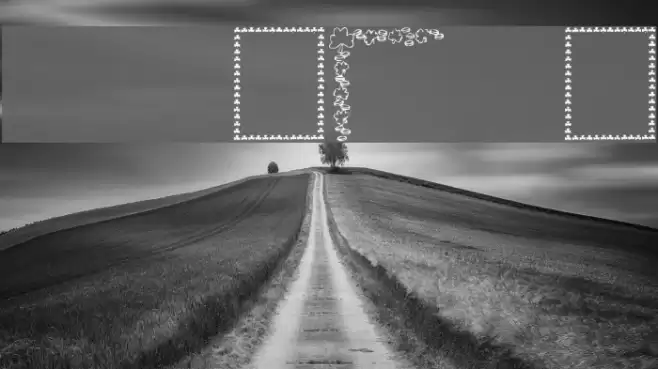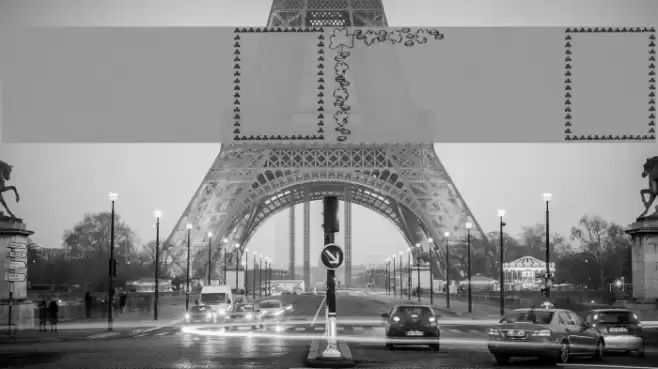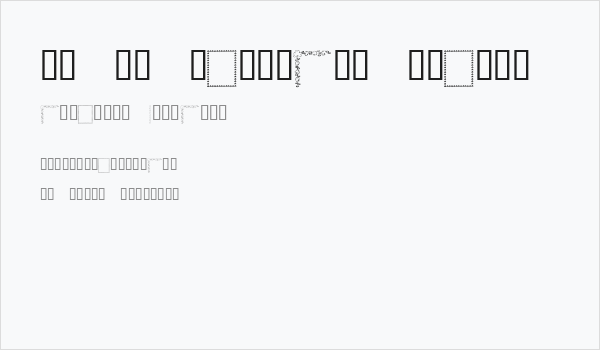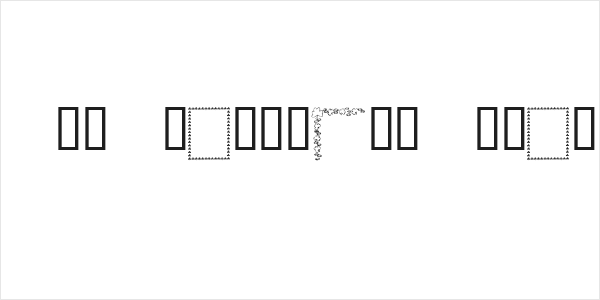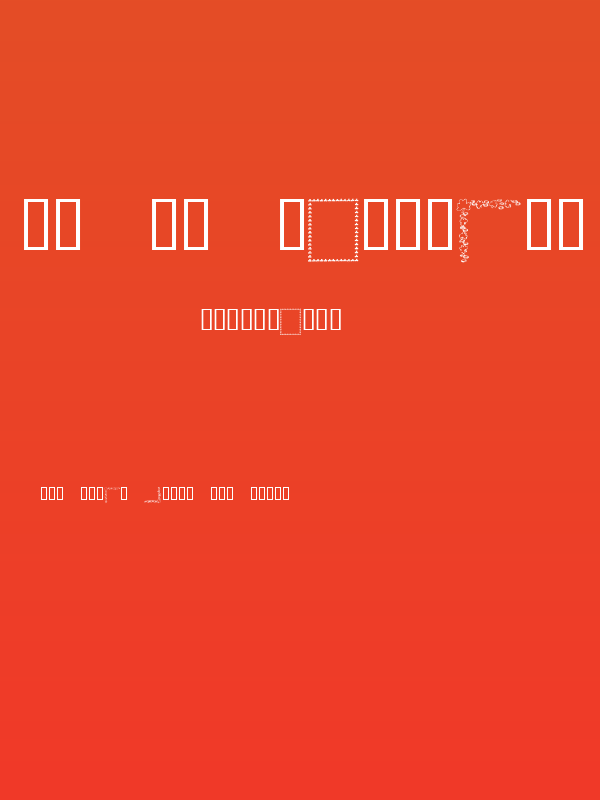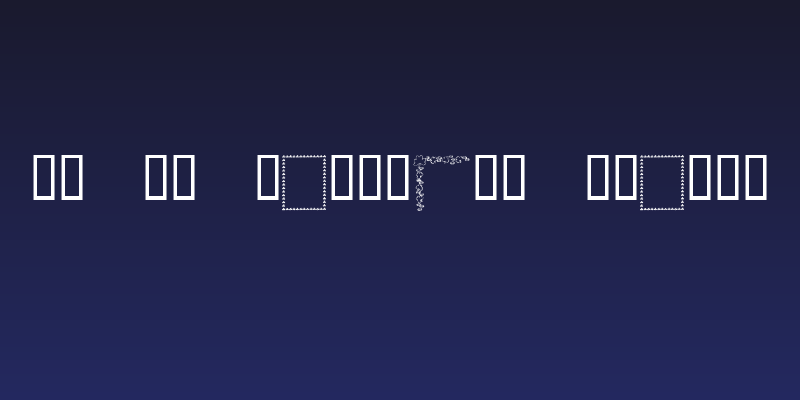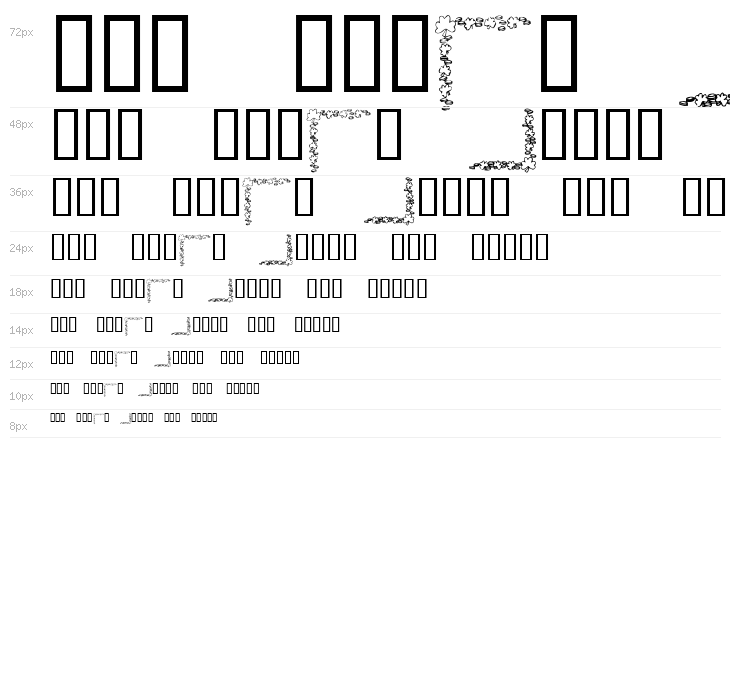
KR St Patricks Frames Font
KR St Patricks Frames Description
This is a decorative font featuring frames with intricate St. Patrick's Day-themed designs. Each character is enclosed within a rectangular border, adorned with patterns of shamrocks and other festive elements. The font is highly ornamental, making it suitable for themed projects that require a touch of celebration and festivity. The characters are uniform in size, with consistent spacing between each frame, ensuring a cohesive appearance. The style is playful and festive, capturing the essence of St. Patrick's Day with its unique and detailed embellishments.
| Proposed Projects | Ideal for holiday greeting cards, festive banners, themed party invitations, and decorative posters. |